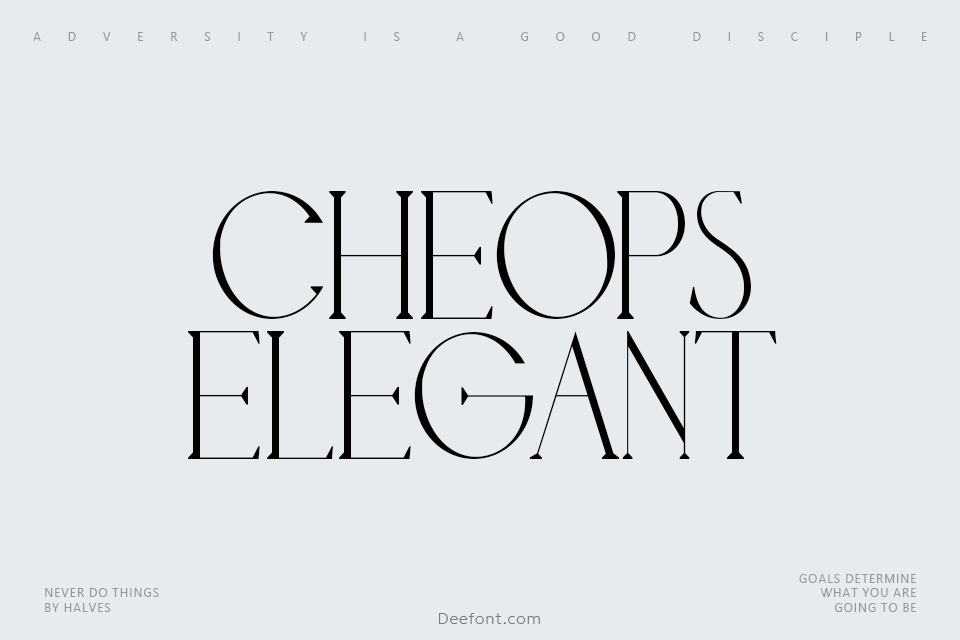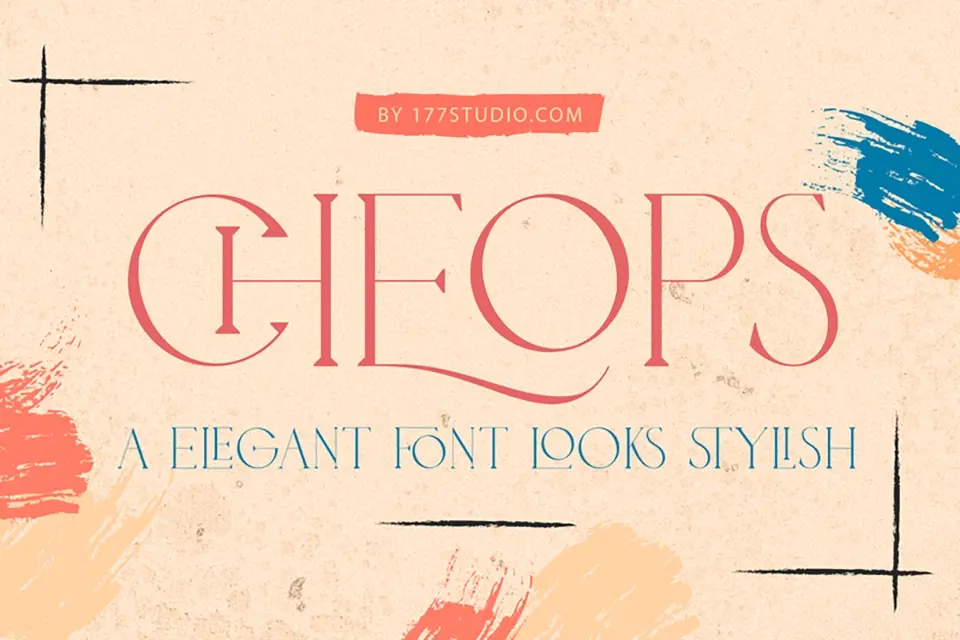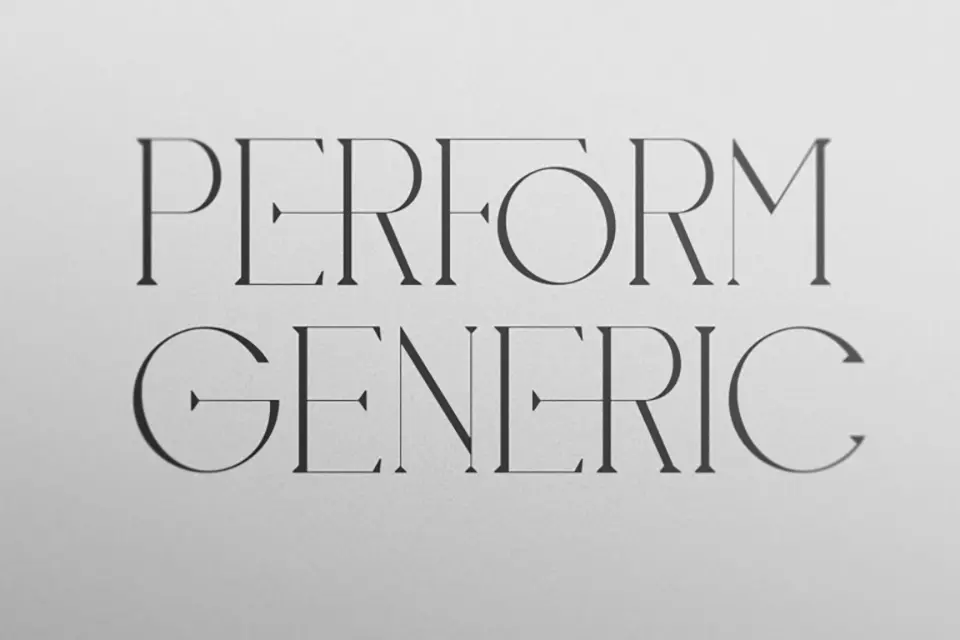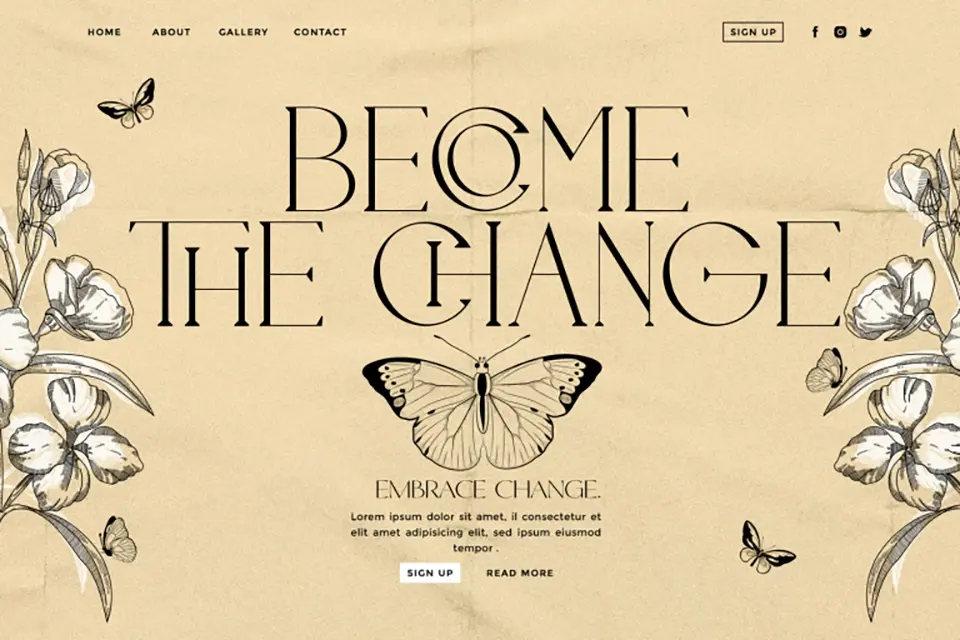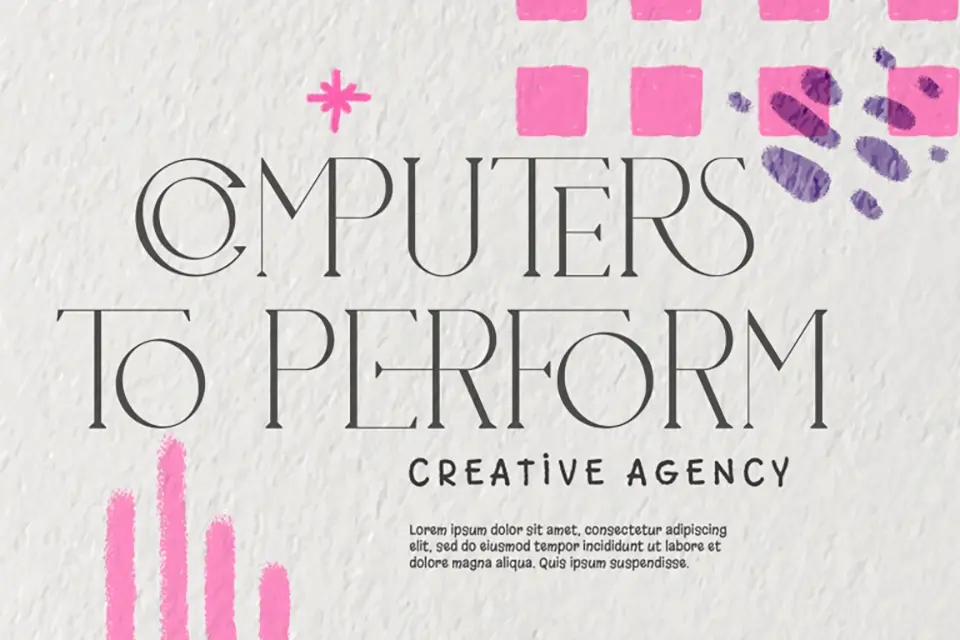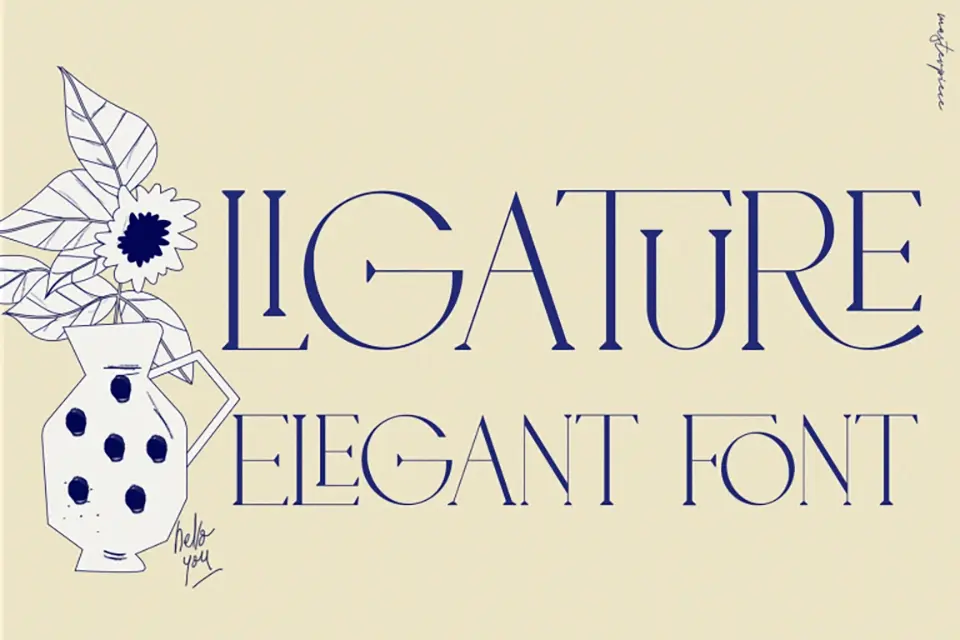
Cheops Elegant Font
Cheops Elegant Font is a sophisticated serif typeface that combines elegance with contemporary design. Created by 177Studio, this light serif font features refined letterforms, decorative ligatures, and luxury characteristics perfect for high-end projects. Ideal for wedding invitations, luxury branding, fashion designs, and editorial layouts, it seamlessly blends classic sophistication with modern aesthetics. The font includes uppercase and lowercase letters, special ligatures, numerals, punctuation, and accented characters, making it versatile for both print and digital applications requiring refined typography.fonnts+2